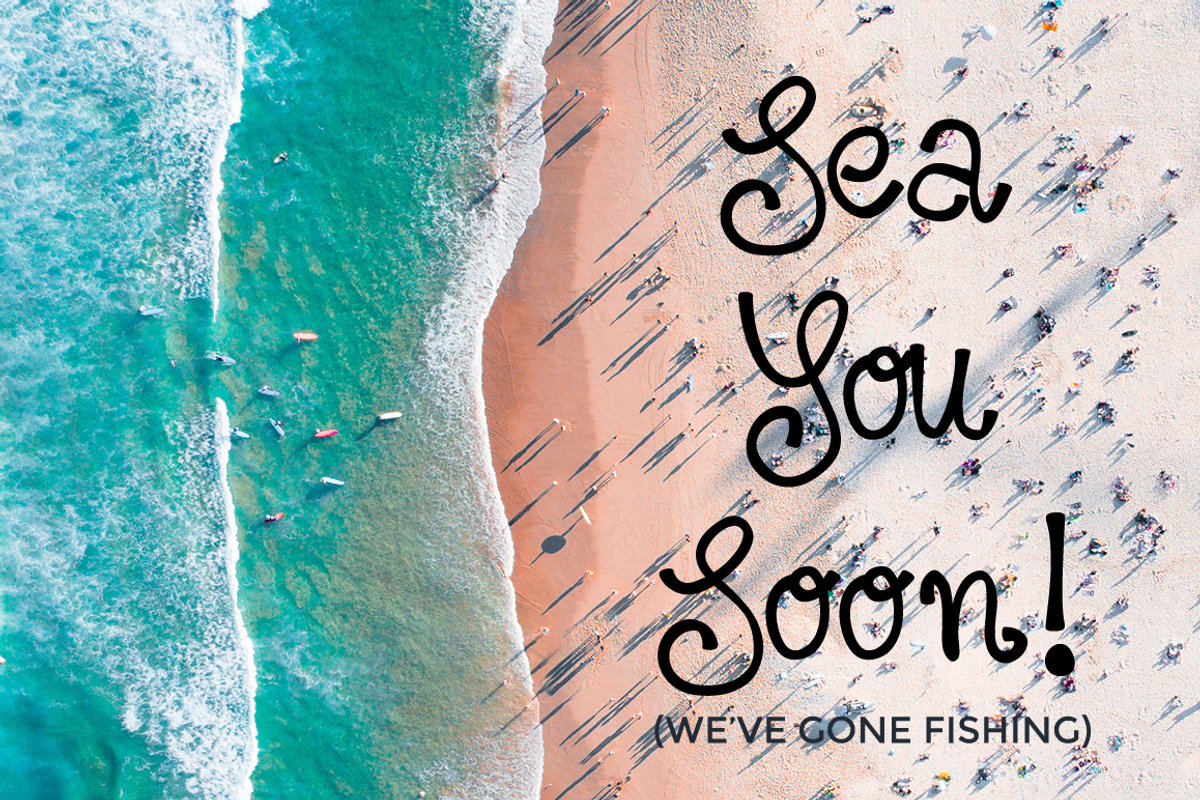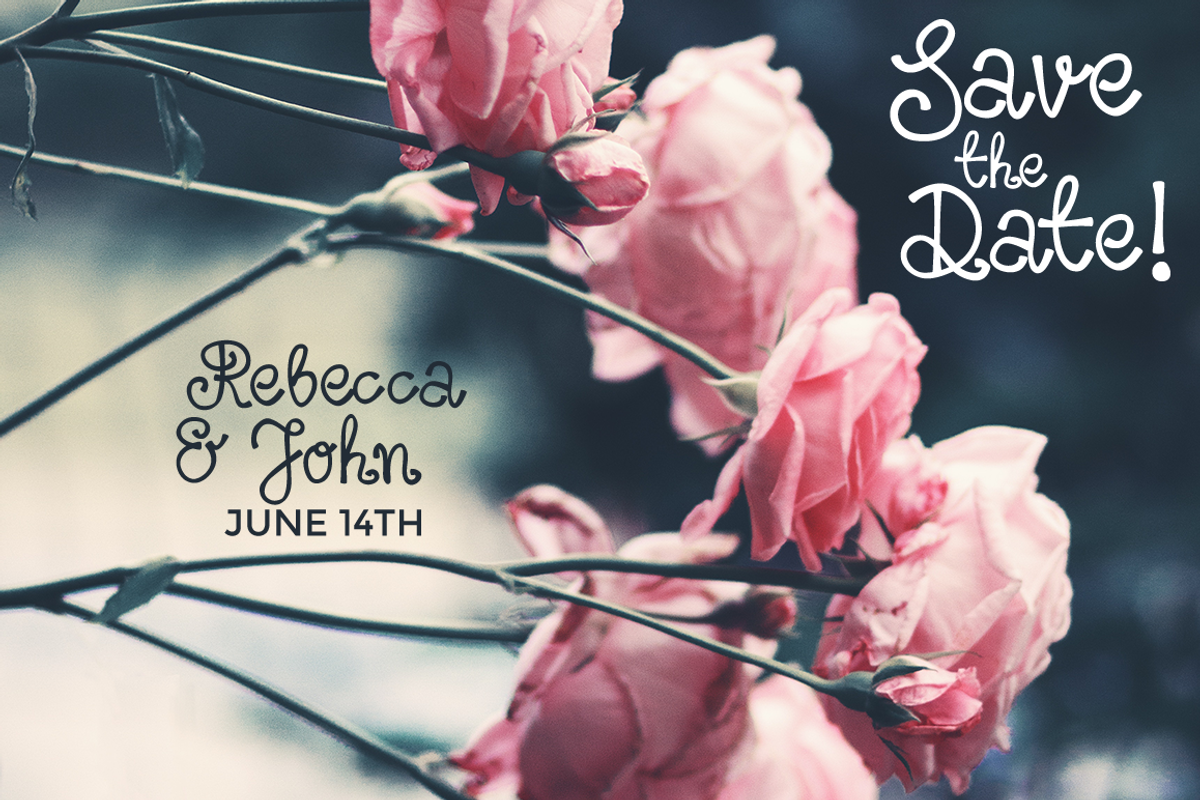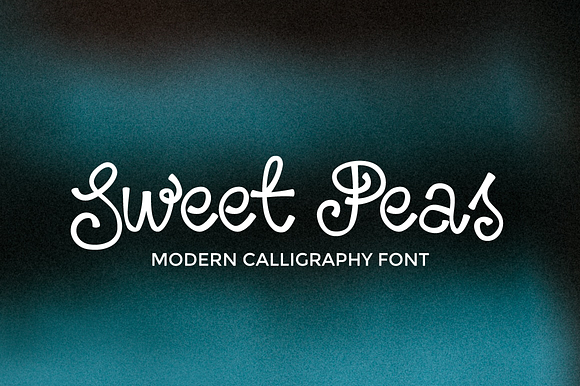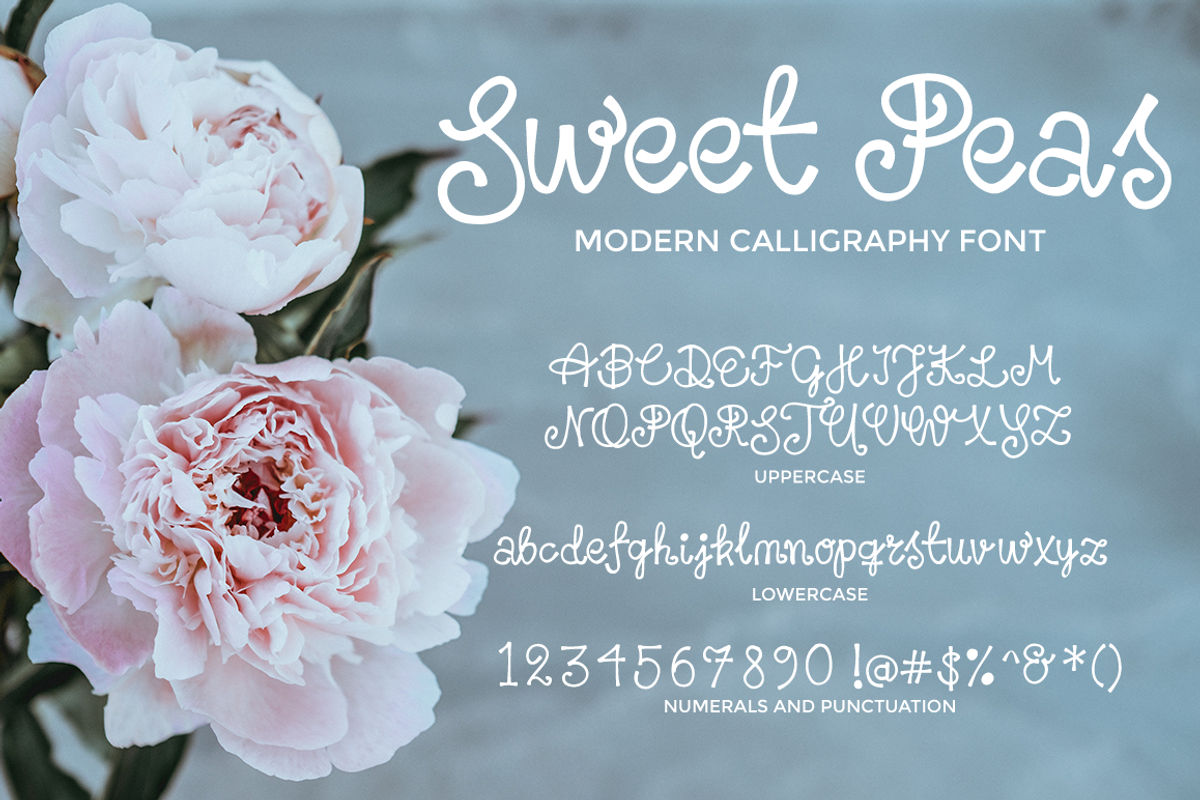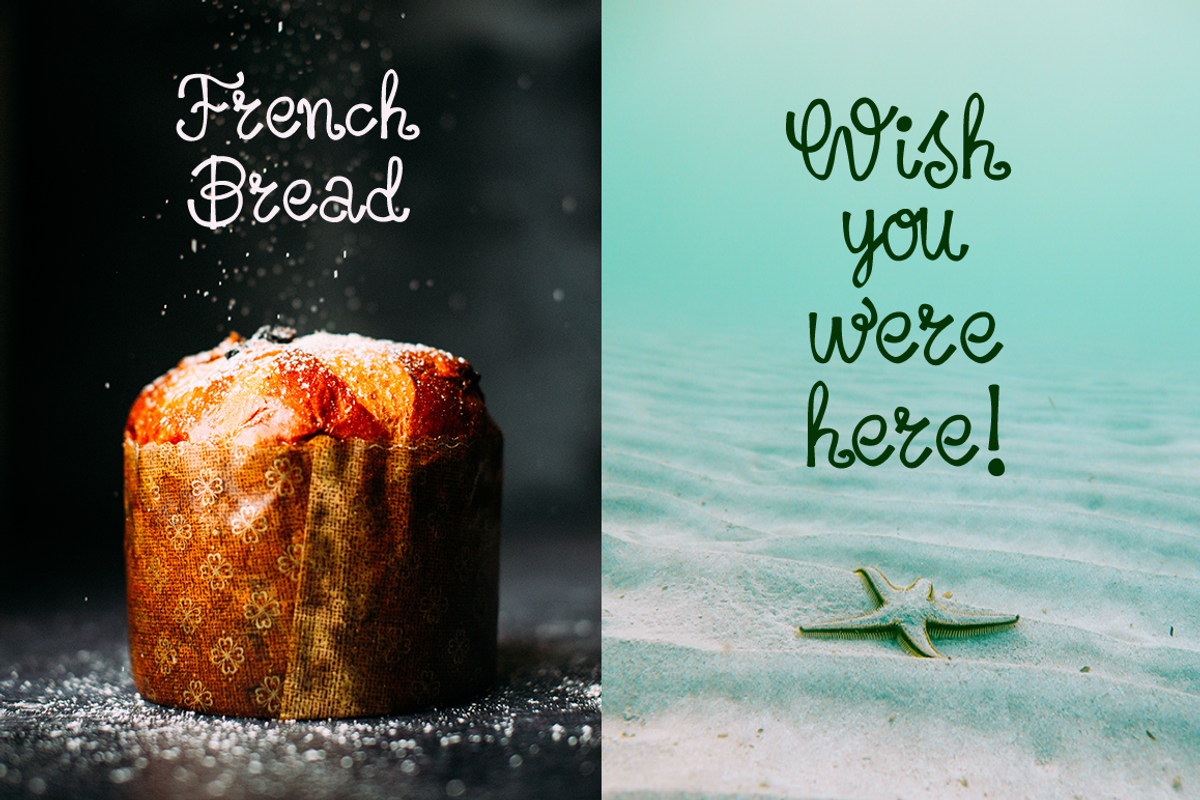
Sweet Peas Font
Sweet Peas is a bohemian, modern calligraphy font. A hand written artistic typeface, full of energy and playful elegance. It's a free spirit. Guaranteed to make your text stand out, Sweet Peas gives a hand lettered, whimsical feel to your logos, quotes, invitations, cards, branding, packaging, illustrations, and social media photo overlays.
ALTERNATE GLYPHS AND EXTRAS
The typeface includes multilingual support for many languages including; English, French, Italian, Greek, Spanish, German, Portuguese, Dutch, Romanian, Polish, Czech, Turkish, Welsh, Icelandic, Swedish, Finnish, Danish, Russian, and Latin.